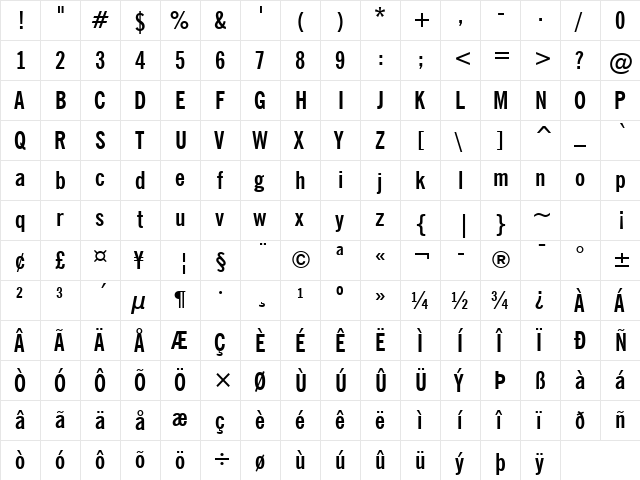
NewsGoth Cn BT Bold
Design Context for NewsGoth Cn BT Typeface
NewsGoth Cn BT is a composed and adaptable typeface that performs quietly and consistently across a wide range of design contexts. The heavy weight commands attention and anchors typographic hierarchies.